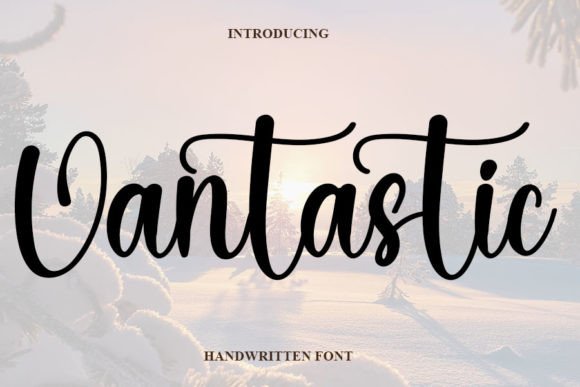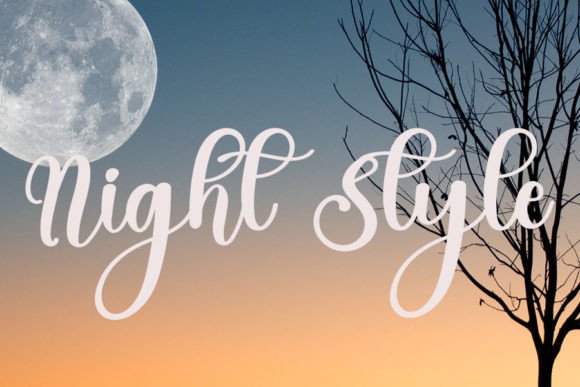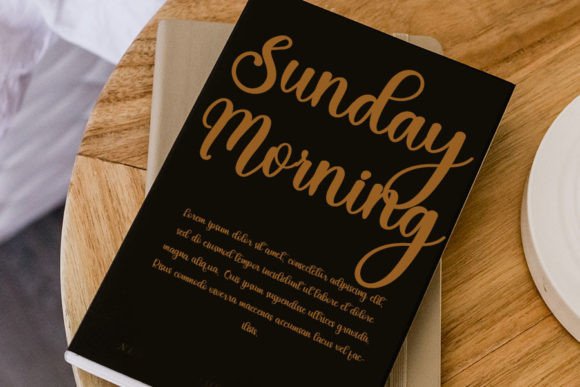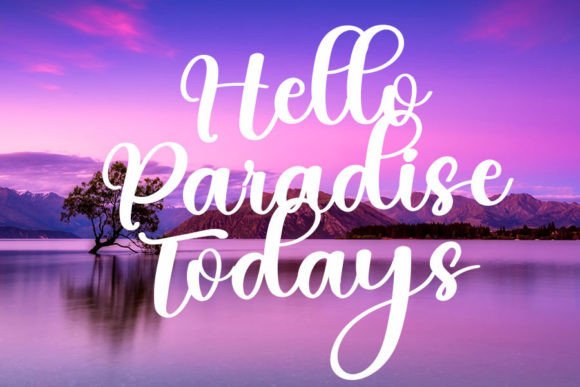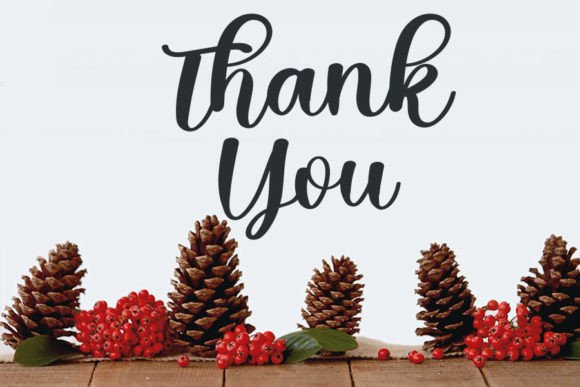
Vantastic Font
About Vantastic Font
Vantastic font is a friendly handwritten font designed with care to become a true favorite among designers. When you download Vantastic font, you gain access to a typeface that adds warmth, personality, and a charming handcrafted feel to all your creative projects.
Friendly and Approachable Handwritten Style
Vantastic offers a natural, approachable look that resonates with a wide audience. Its smooth strokes and casual style make it perfect for designs that need to feel personal and inviting. This font’s friendly appearance works well in many contexts, from branding to casual print designs.
Versatility Across Creative Projects
Whether you’re working on greeting cards, social media graphics, logos, or invitations, Vantasticfont fits seamlessly. Its versatile nature allows it to adapt to different design needs, making it an excellent choice for both professional and personal projects.